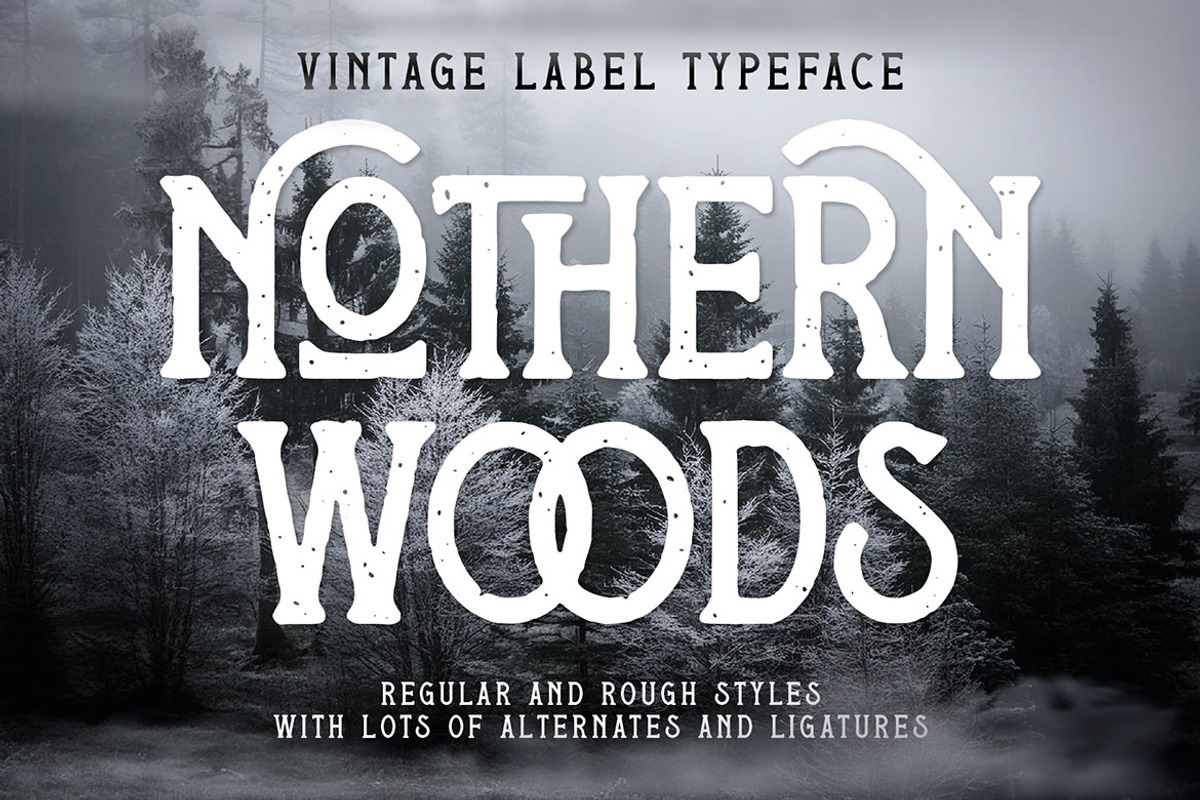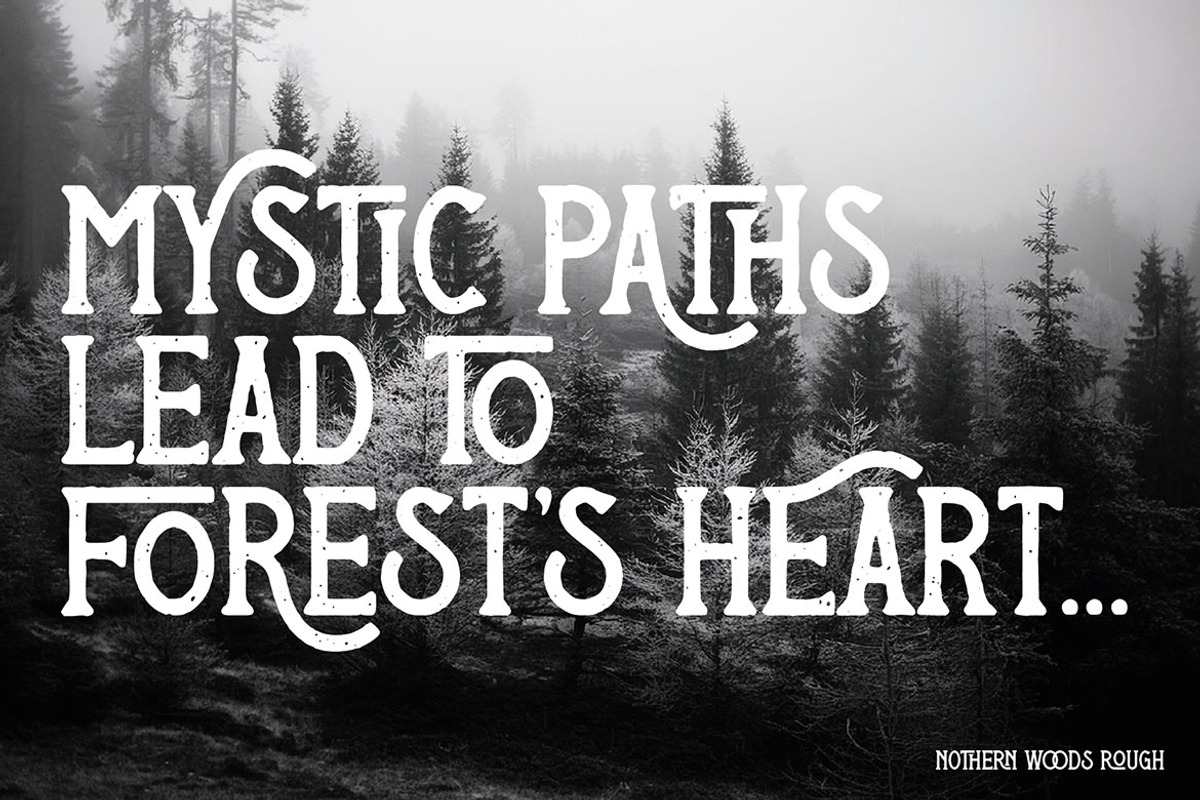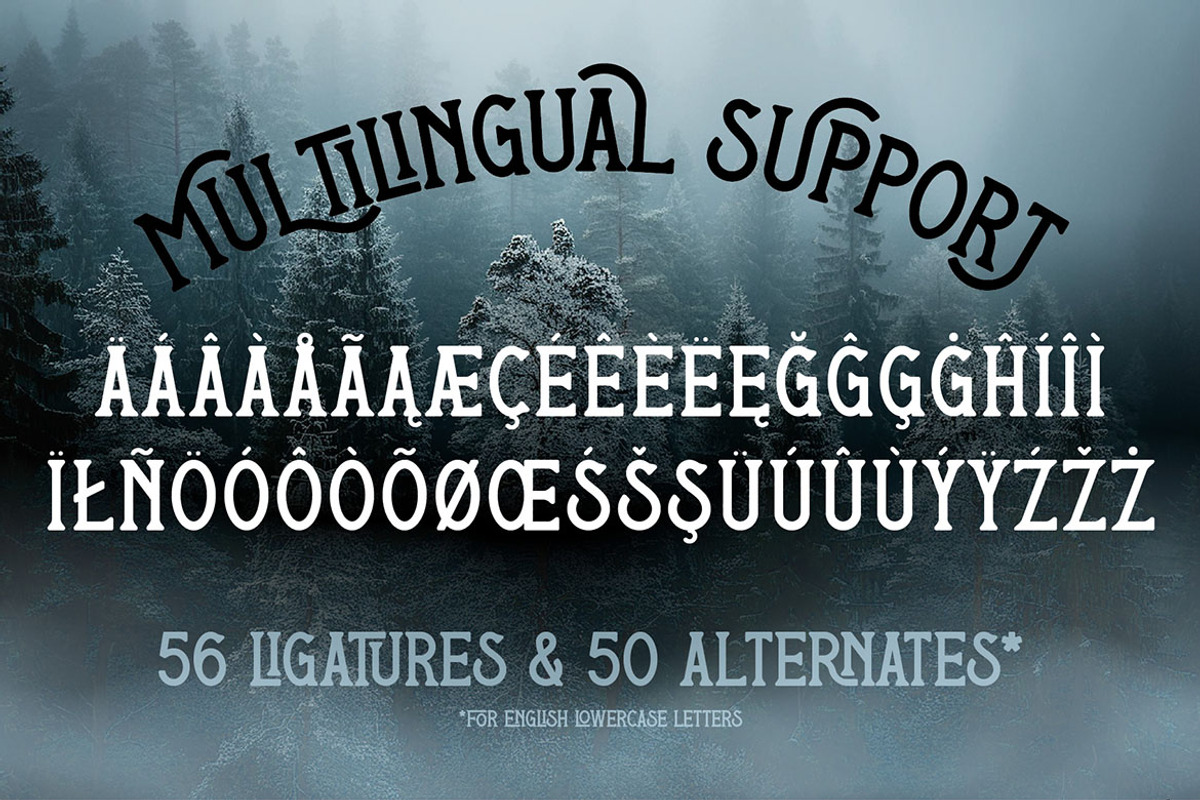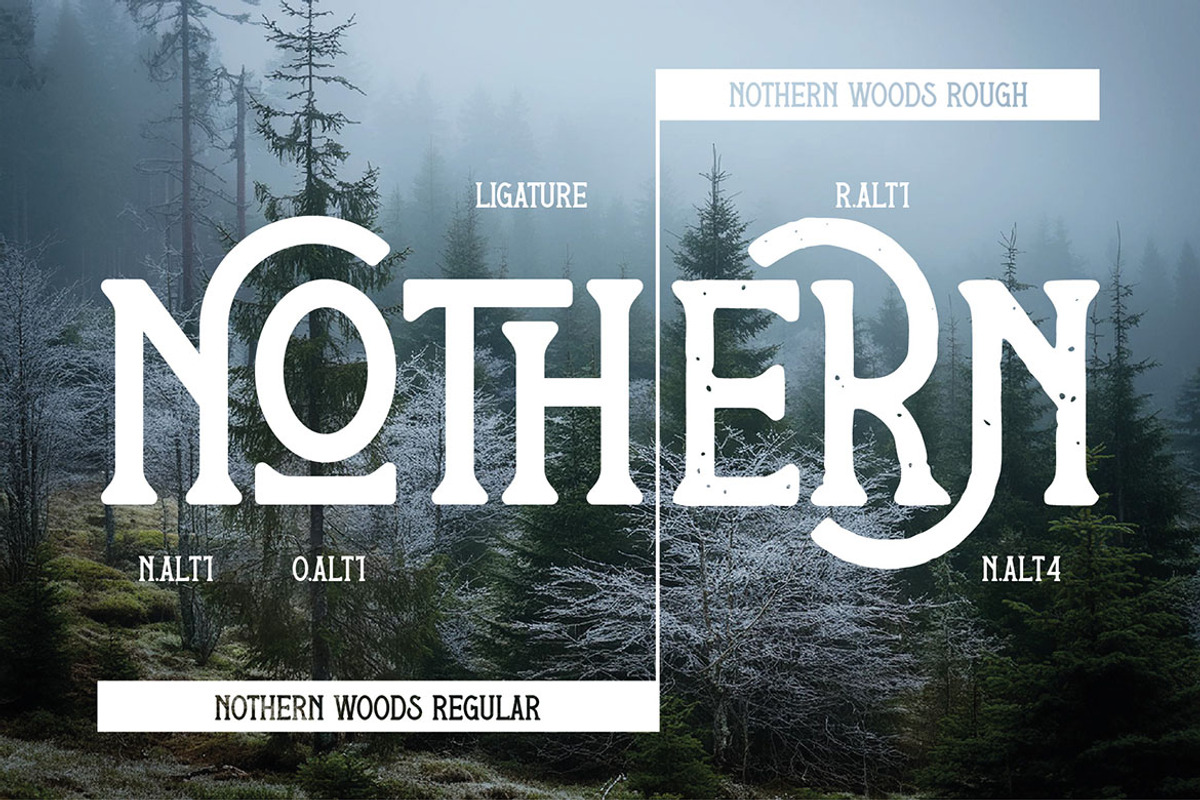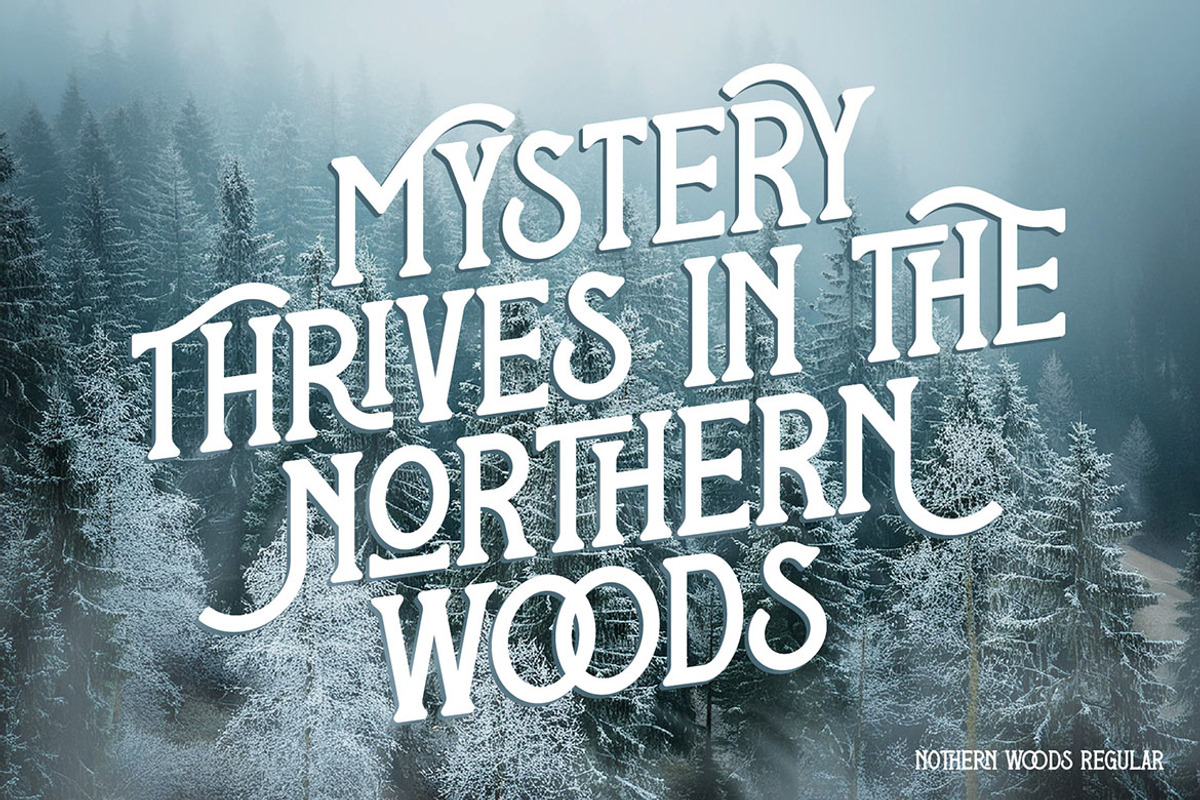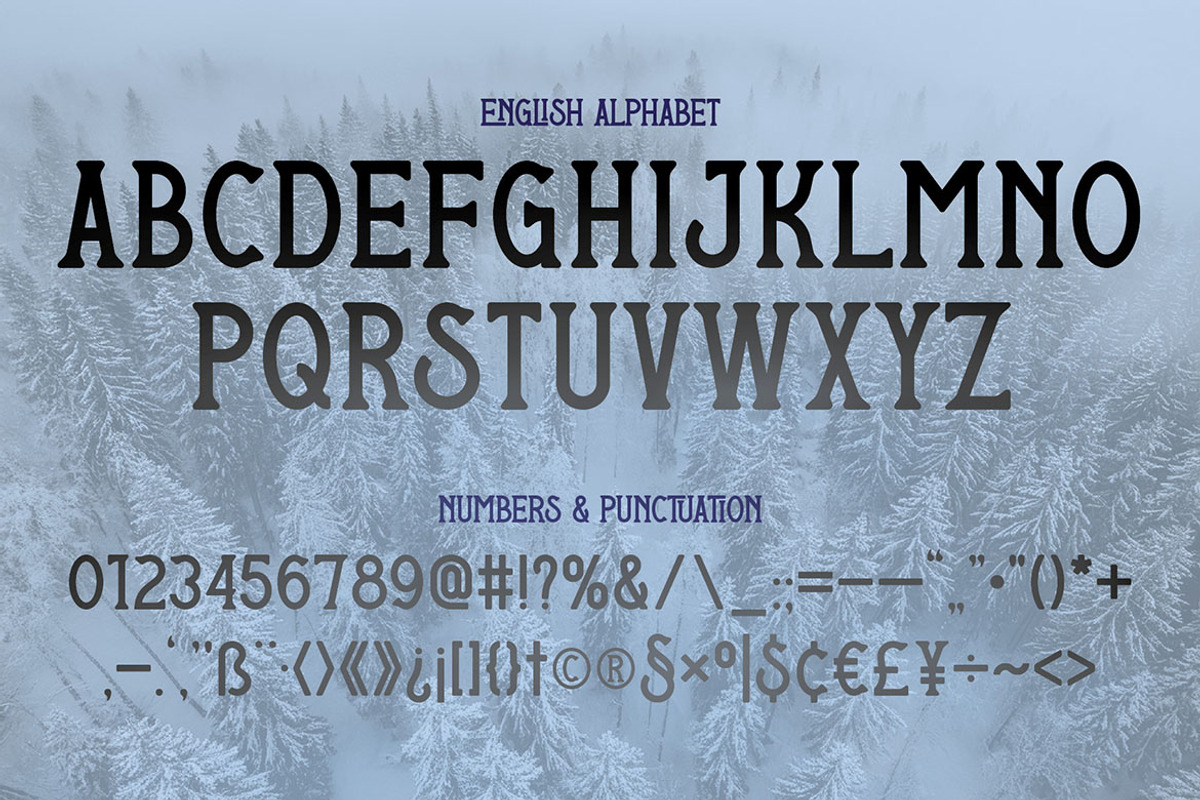
Nothern Woods Vintage Label Font
Unique, decorative, elegant, retro, ligature, monogram & stylish label serif font. Comes with multilingual support, 50 alternates & 56 ligatures + rough font version - great for your new logo, monogram or branding project.
- 2 font versions - regular & rough
- Multilingual support, 50 alternates & 56 ligatures
- Great for your new logo, monogram or branding project